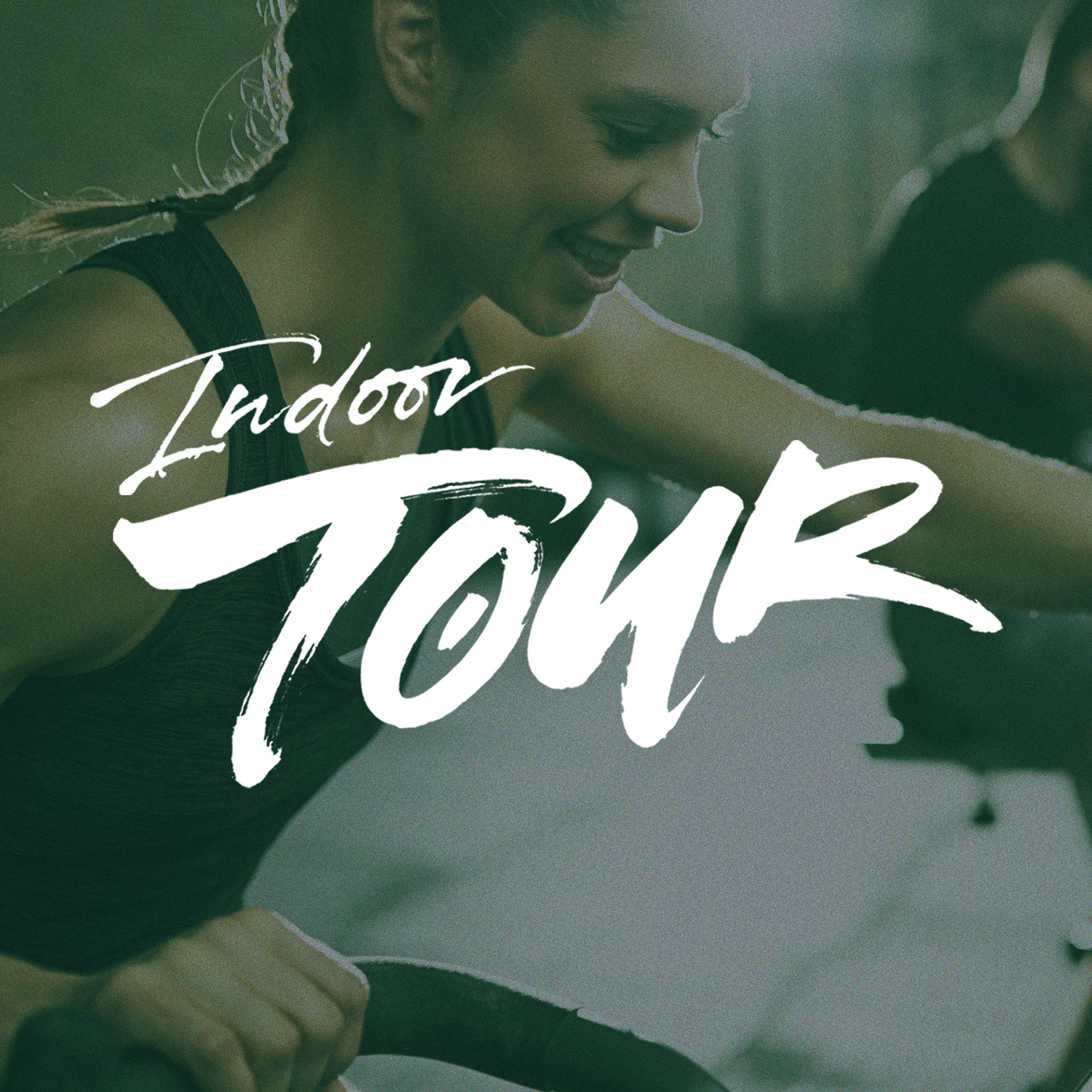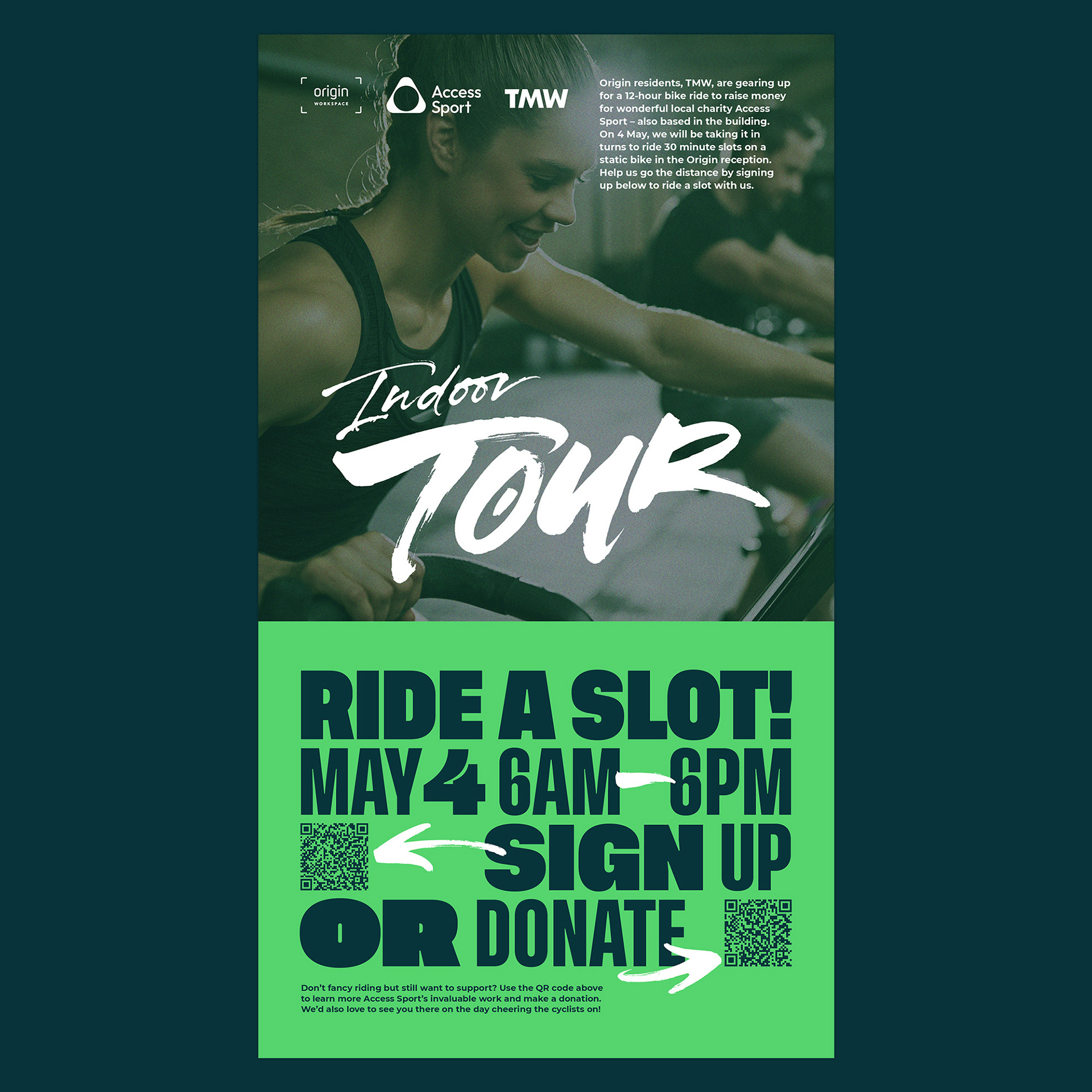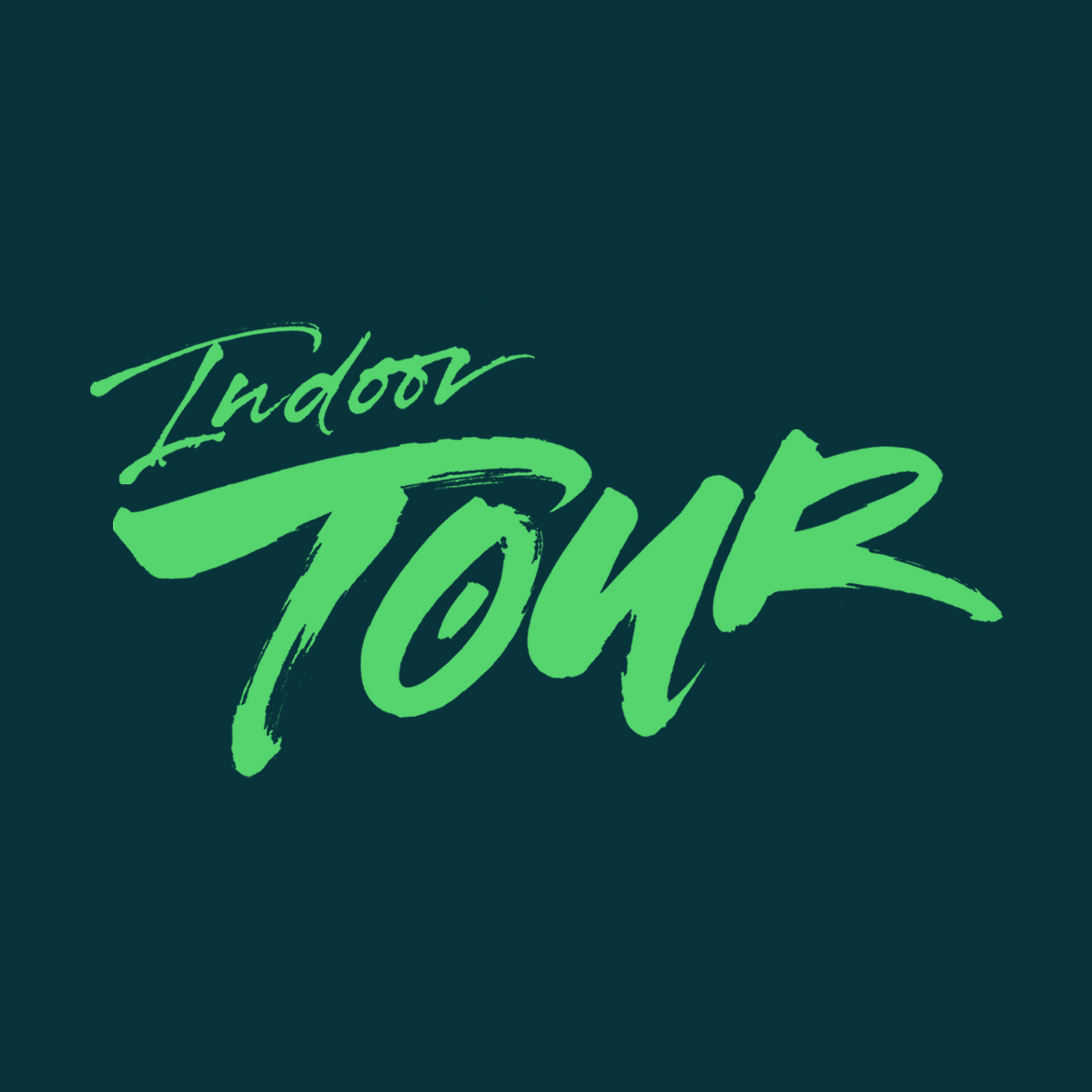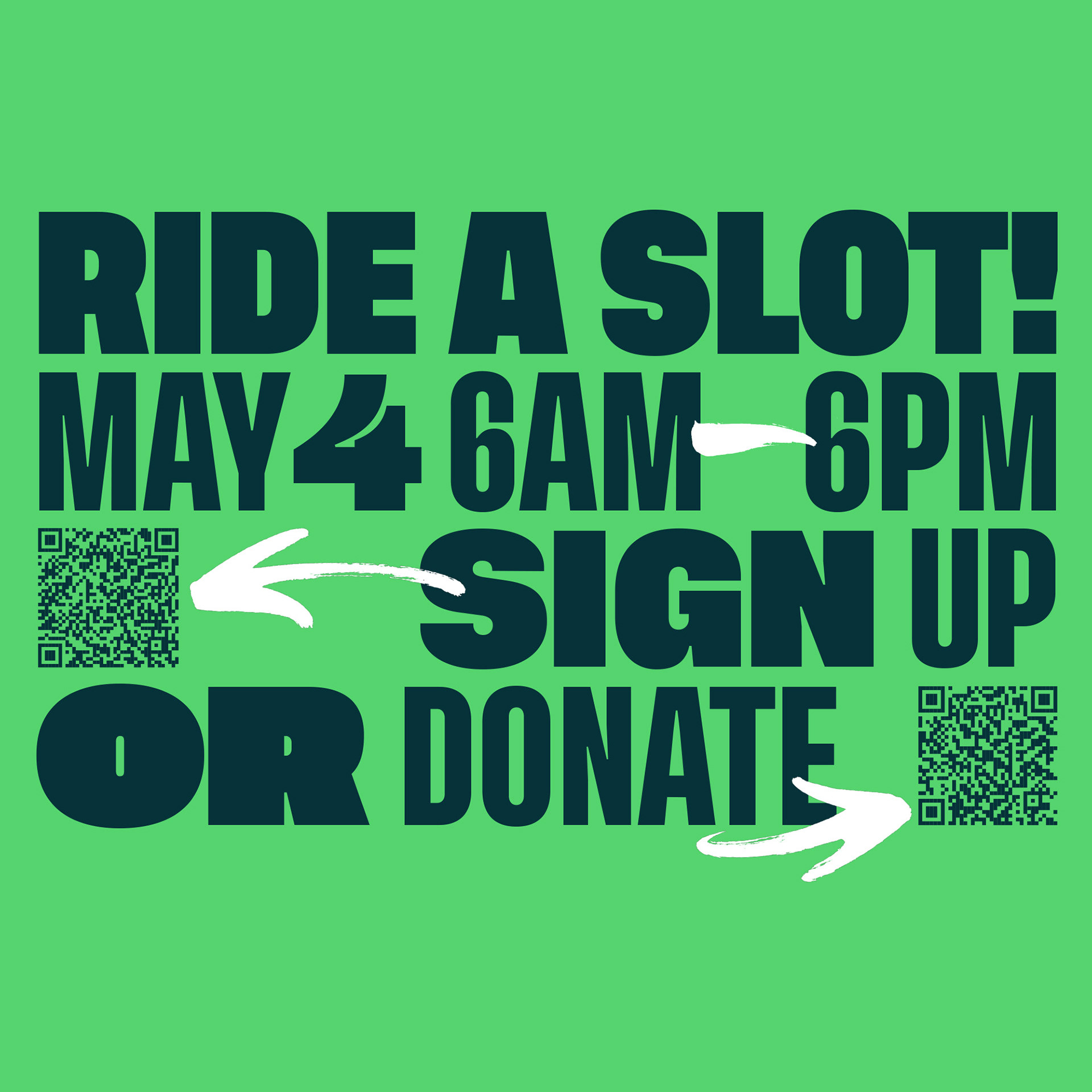
TMW Agency ran a charity day to raise money for Access Sport – a charity that aims to make sport accessible to everyone. This took the form of a 12 hour bike ride on a static bike in the lobby of the TMW building. They wanted some energetic and expressive type to brand the event and promote it on screens within the building to encourage people to sign up for a 30 minute slot.